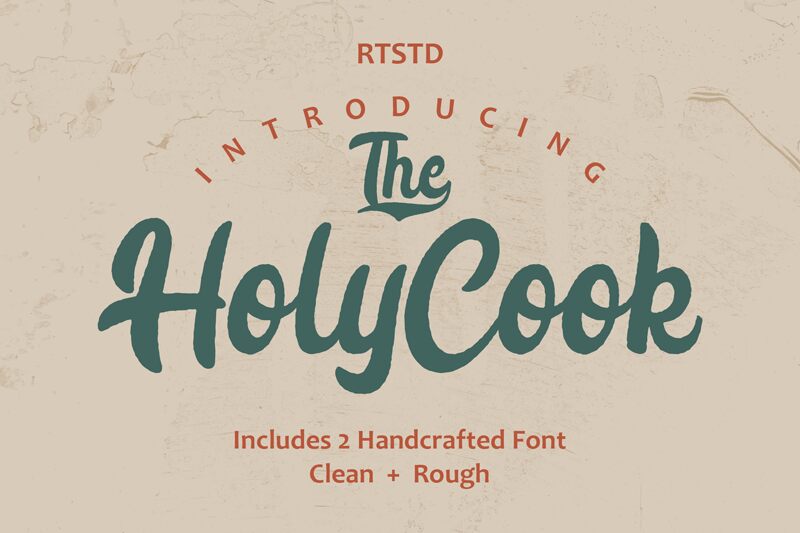
Holy Cook by RT Studio captures the essence of retro aesthetics with a smooth brush style that exudes charm and character. The fluidity of its strokes creates an inviting and nostalgic feel, perfectly balanced to appeal to both contemporary and vintage tastes. Bold yet graceful, Holy Cook stands out in any creative project, making it ideal for branding, packaging, posters, and retro-themed designs. Its unique combination of elegance and boldness ensures your text remains not just readable but also memorable.
Whether you're crafting a modern logo or diving into mid-century design vibes, Holy Cook provides a distinctive flair that commands attention while remaining stylishly approachable.